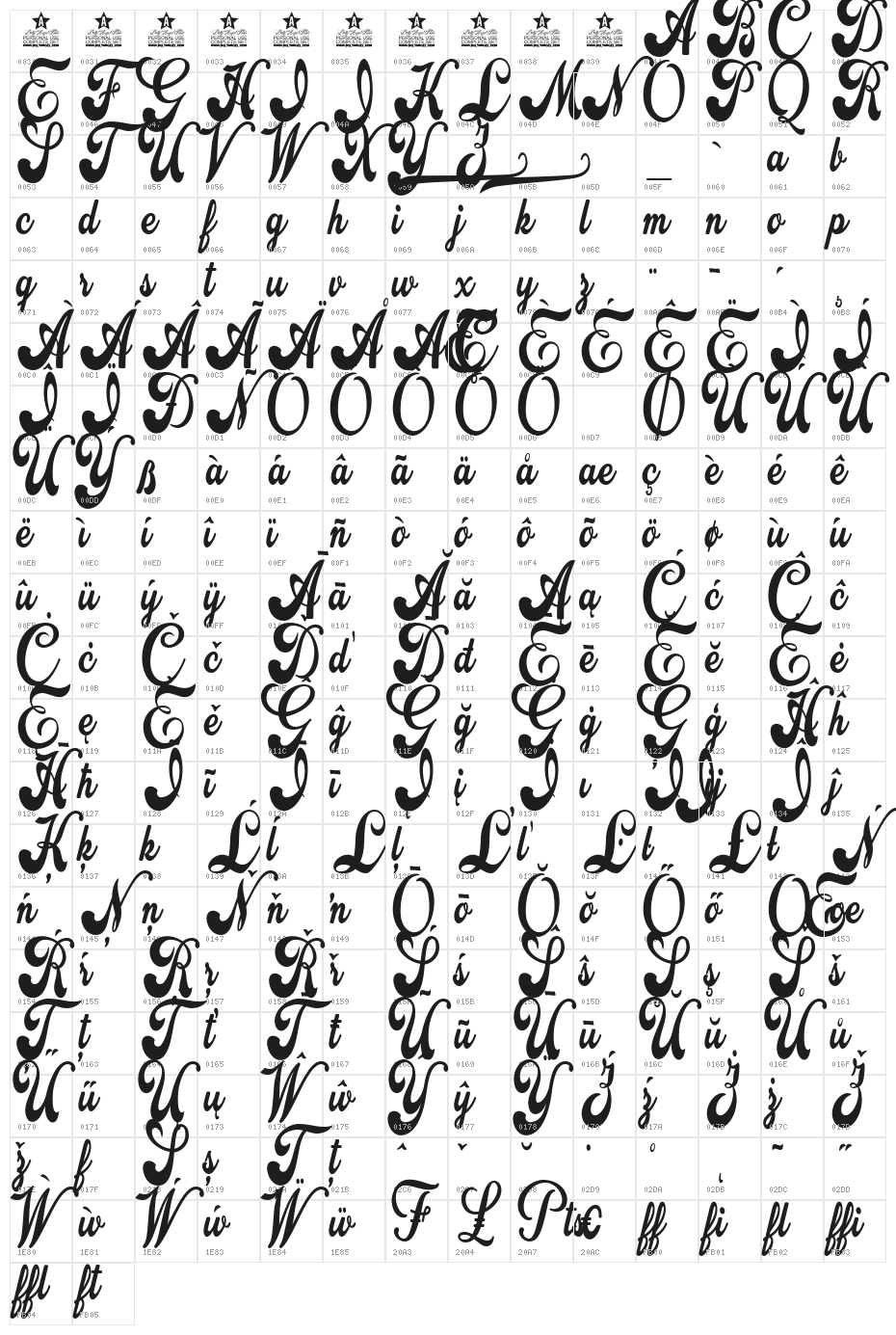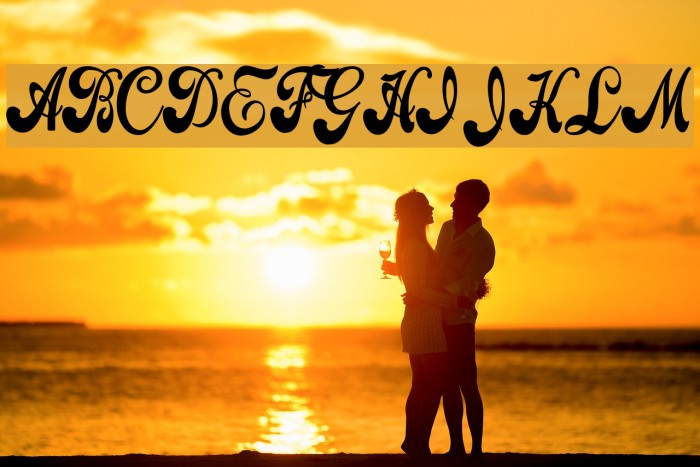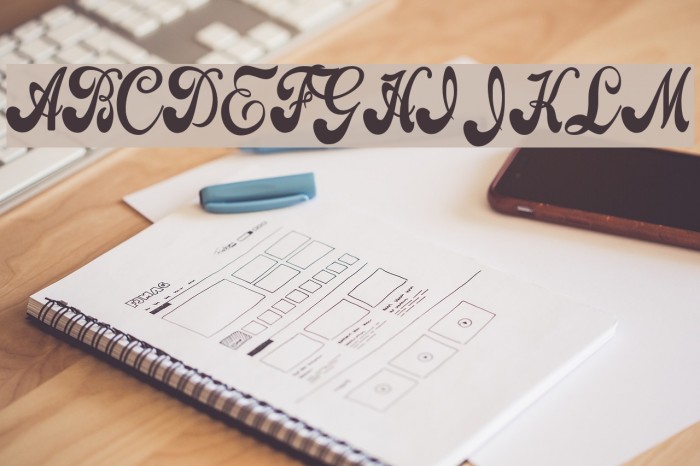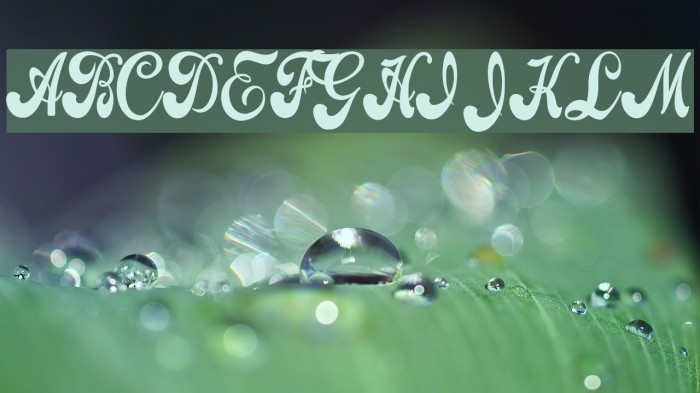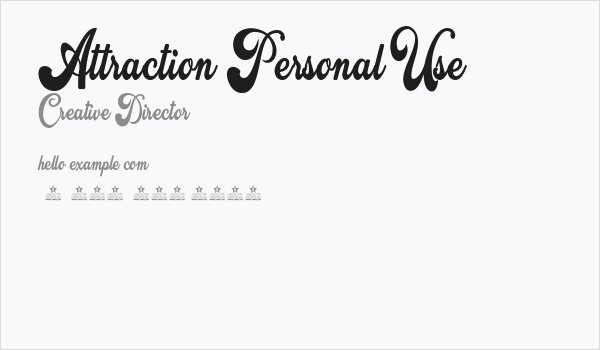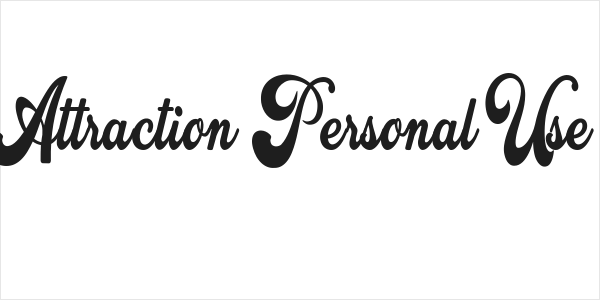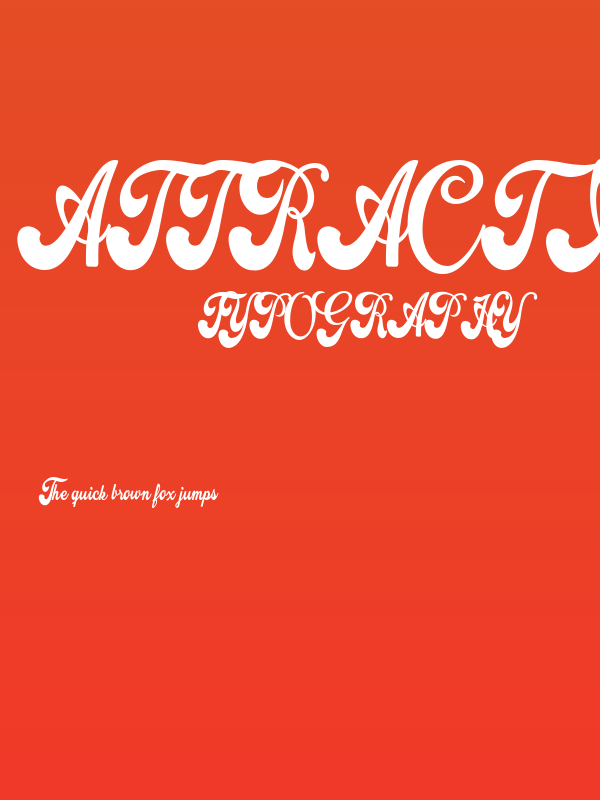
Attraction Personal Use Font
Attraction Personal Use Description
This font features a bold and decorative script style with a flowing, cursive design. The uppercase letters are ornate, with exaggerated curves and loops, giving them a dramatic flair. The lowercase letters maintain a consistent flow, enhancing readability while retaining an artistic touch. The numbers and special characters are designed to match the overall aesthetic, ensuring a cohesive look across all text elements. The font's unique style makes it suitable for creative and expressive projects, where a touch of elegance and personality is desired.
| Proposed Projects | Ideal for wedding invitations, greeting cards, logos, and branding materials that require a personal and elegant touch. |